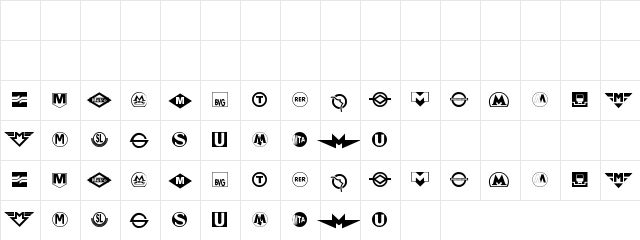
Subway Sign normal
| Foundry | High-Logic |
| Designer | High-Logic - Erwin Denissen |
Design Context for Subway Sign Typeface
Subway Sign is a composed and adaptable typeface that performs quietly and consistently across a wide range of design contexts.